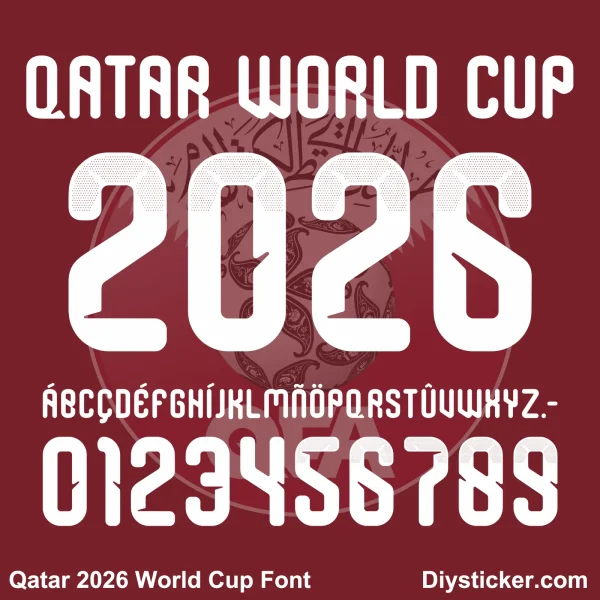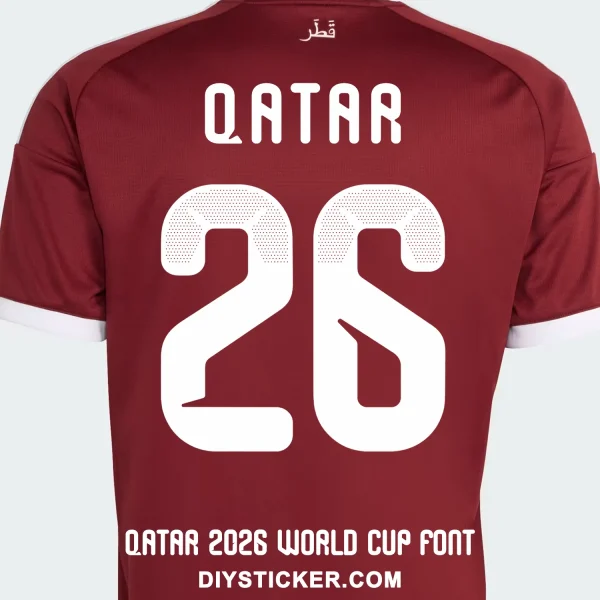
Qatar 2026 World Cup Font & Numbers Vector Kit: Premium AFC Tournament Customization
Upgrade your custom print production with the high-performance Qatar 2026 World Cup font and complete numbers set. Designed to perfectly replicate the striking national team look worn during international qualifiers and world championship stages, this digital toolkit offers unrivaled geometric precision. Whether you are creating a custom name-set for a passionate fan or compiling massive promotional sports signage, our vector files ensure factory-fresh alignment. Discover more iconic international tournament designs by exploring our curated World Cup 2026 Fonts repository.
Aesthetic Design Breakdown & Typography Engineering
The Qatar 2026 World Cup font features an exquisite, custom athletic design crafted to stand out on the pitch. Distinctive visual selling points include:
Intricate Halftone Gradient Dot Pattern: The top curve of each large digit incorporates a fine halftone dot gradient texture. This intricate detail fades smoothly into the solid body, providing an elite, high-contrast layer that prevents designs from washing out under intense stadium lighting.
Calligraphic Arabic-Inspired Geometry: The letters and numbers combine fluid curves with sharp structural notches, paying subtle homage to traditional Arabic calligraphy while retaining a high-speed, modern sporting aesthetic.
Elegant Solid White Profile: Engineered to pop with maximum contrast against the national team’s iconic deep maroon home jerseys or vibrant away kits.